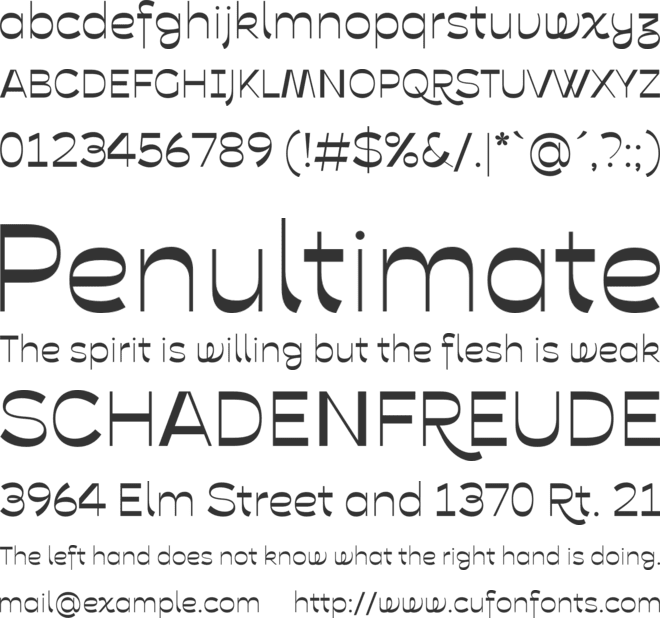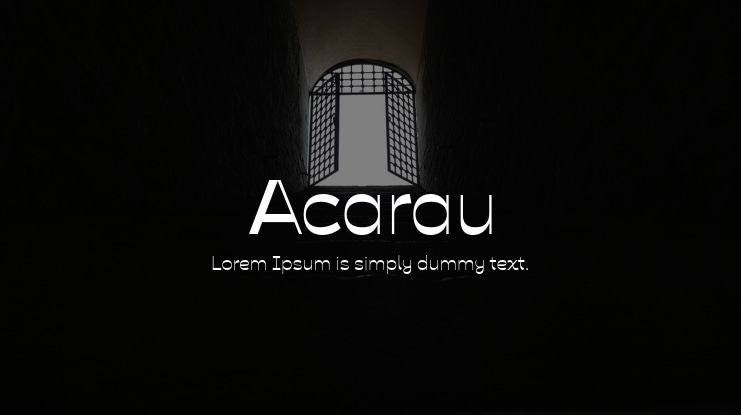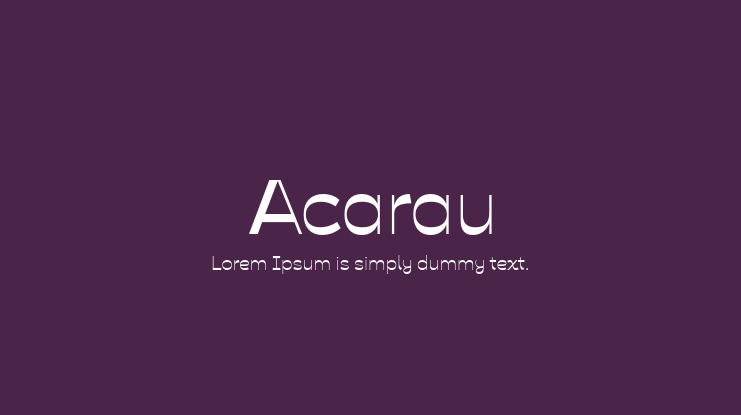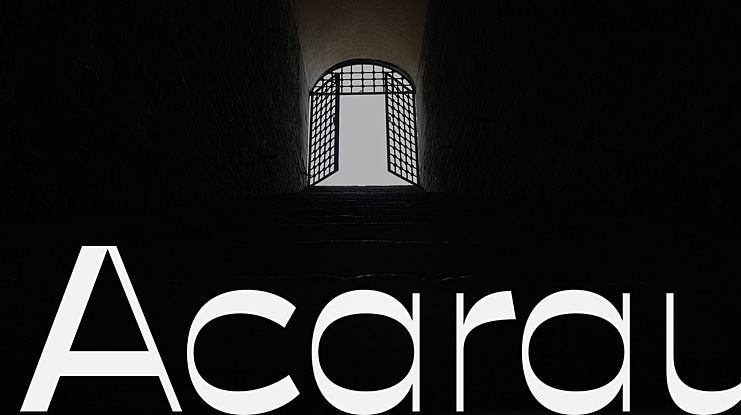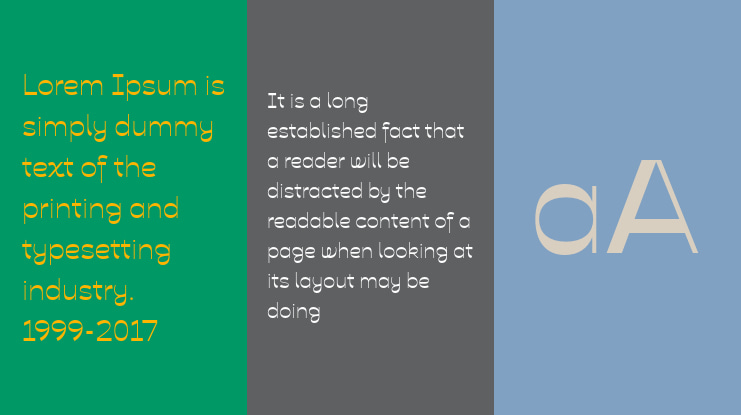
Acarau Font
Matheus “Fio” dos Santos Gonçalves
It’s a western display typeface. The reverse contrast make this font looks different and stand out from the crowd—since from Roman capitals and calligraphy, usually Latin alphabet letters have thiner horizontal steams and thicker verticals, these features being optical or visual—quite adequate for logos, headlines and posters.
Moreover, the style of the typeface is inspired by Italics form factor: lowercase letters having less strokes to make their shapes; A has one story; E has one stroke shape, such as K, G, Y and Z; F has a descent.
To give it more calligraphic feeling, there is contrast for uppercases as well, this is very perceived by the diagonal letters like A, K, M, N, V, W, X, Y and Z. J also has a descent. Q and R have natural swashes, but they have alternates in case the costumer want to go for more usual forms—including accent marked letters.
Acarau is a 12 months project, the contrast for uppercases were increasing as the process was made. In the middle it is found suitable blend the letter shapes with the history of Brazilian music from the 70’s and 80’s, since the font has a tropical, warm, spicy and nostalgic feeling. Songs from bands and singers that emerged on Rio de Janeiro like Paralamas do Sucesso, Cazuza, Lulu Santos and Kid Abelha bring the beach accent and rhythm that this font has.